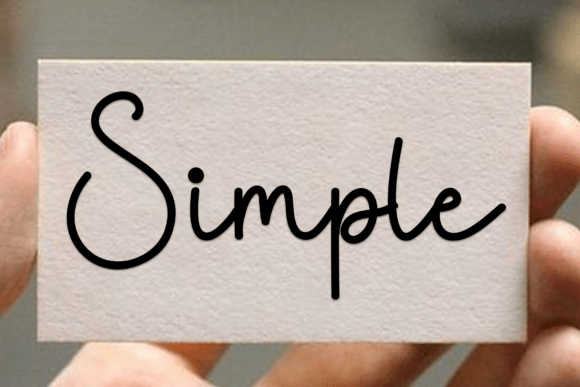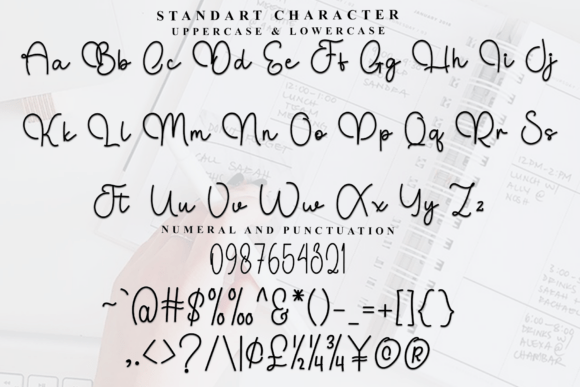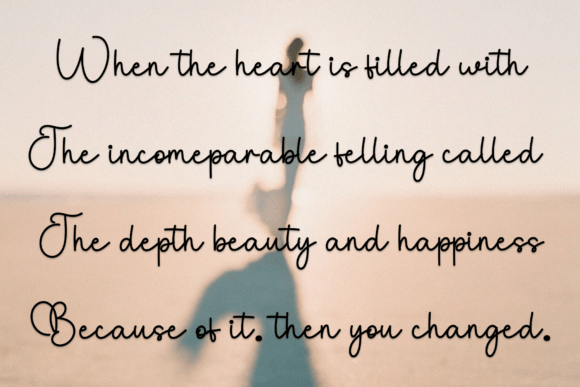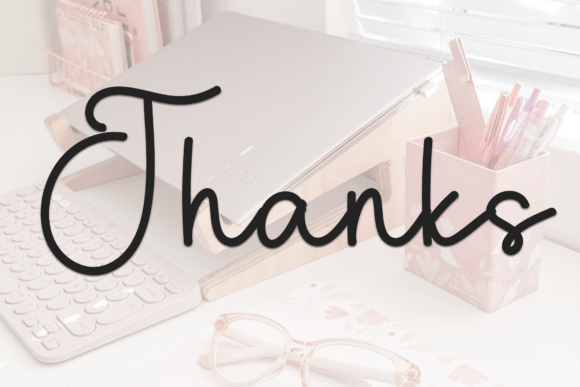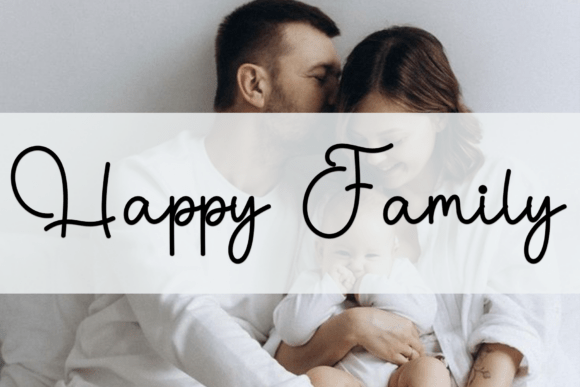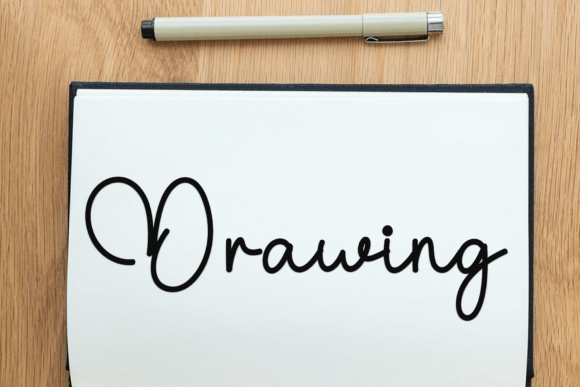
It’s that time of the year again – the snowflakes are falling, the fireplace is crackling, and the aroma of freshly baked cookies is wafting through the air. As you sit down to create the perfect holiday card or gift tag, you know that the right font can make all the difference. That’s where Fantastic Font comes in – a festive and merry typeface that captures the spirit of the holiday season.
With its decorative elements and whimsical flair, Fantastic Font adds a touch of enchantment to your designs, making it perfect for holiday-themed projects. As a designer, you know that having a versatile and well-crafted font can elevate your work and make it stand out. Fantastic Font’s PUA encoding also means you can access all of its amazing glyphs and ligatures with ease, making it a valuable addition to your design arsenal.
Fantastic Font Key Features
- Unique Character Set: Includes over 1,000 glyphs, covering a wide range of languages, including Latin, Cyrillic, and Greek alphabets.
- Smart Swashes: Features intelligent swash connections for a more elegant and connected look in cursive and script text.
- OpenType Features: Supports advanced typographic features, including ligatures, ornaments, and contextual alternates, to enhance the visual appeal of your designs.
Designer Review: Fantastic Font
As a designer, I was excited to dive into “Fantastic Font” and see what it had to offer. Overall, I found it to be a solid, if not spectacular, addition to any design toolkit.
- High level of customization: “Fantastic Font” offers a wide range of options for adjusting the font’s style, from subtle tweaks to drastic overhauls.
- Responsive design: The font adapts seamlessly to different screen sizes and resolutions, ensuring a polished look across various devices.
- Unique character set: “Fantastic Font” boasts an extensive collection of unique characters, including special symbols and icons.
- Lack of consistency: While the font’s customization options are vast, the resulting styles can sometimes feel inconsistent or disjointed.
- Not ideal for small text: At smaller font sizes, “Fantastic Font” can appear somewhat pixelated or blurry.
In conclusion, “Fantastic Font” is a good choice for designers looking to add some flair to their projects. While it may not excel in every area, its strengths make it a valuable addition to any toolkit.